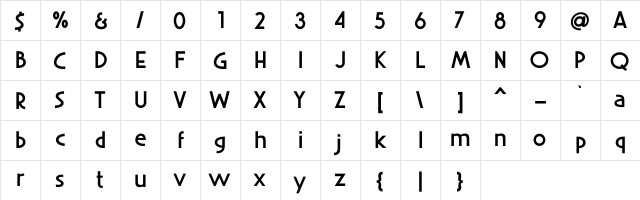
Sunbeam Regular
| Foundry | Kustomtype |
| Designer | Kustomtype |
Design Context for Sunbeam Typeface
Sunbeam is a composed and adaptable typeface that performs quietly and consistently across a wide range of design contexts.